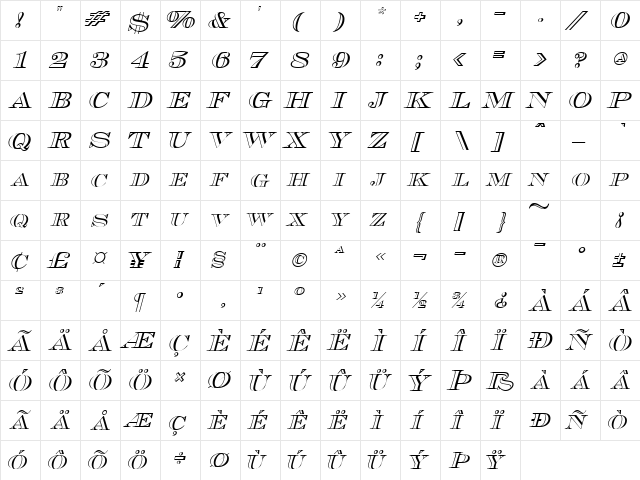
TribOutlineSCapsSSK Italic
Design Context for TribOutlineSCapsSSK Typeface
TribOutlineSCapsSSK brings ornamental detail and strong personality to headlines and identities, where visual impact matters more than quiet functionality. Its italic angle brings a sense of urgency and motion to the letterforms.
Font Pairing: Pair with a clean neutral sans-serif for body copy to let TribOutlineSCapsSSK's character lead without overwhelming the composition.
Pro Tip: Use TribOutlineSCapsSSK exclusively at display sizes — it was designed to be seen, not read at length. Let a neutral companion handle body copy.